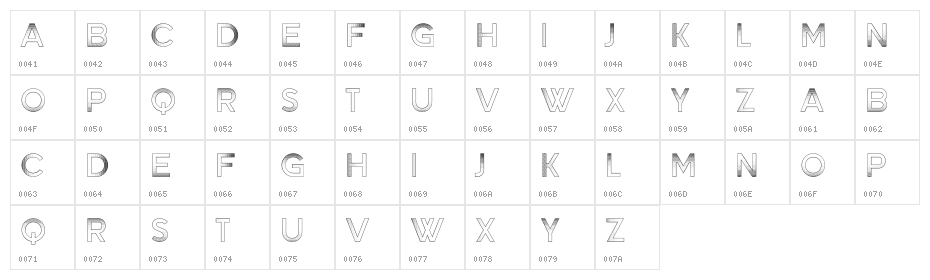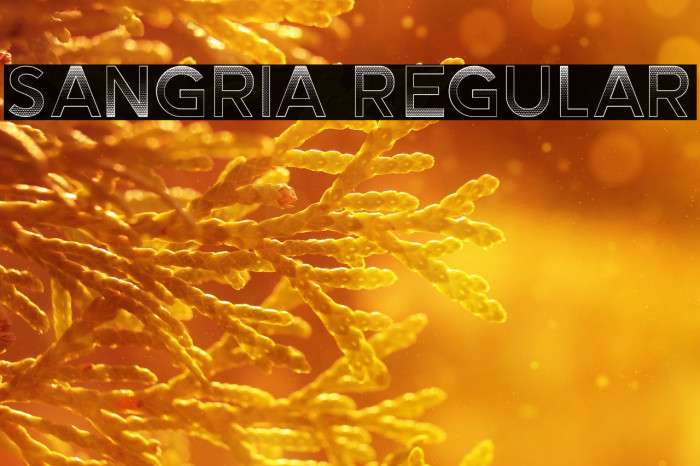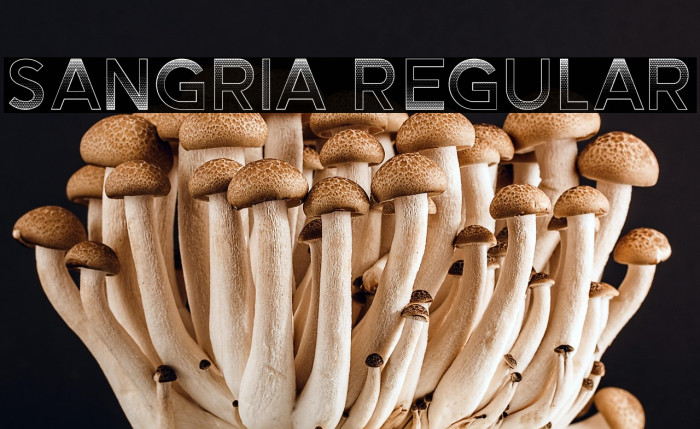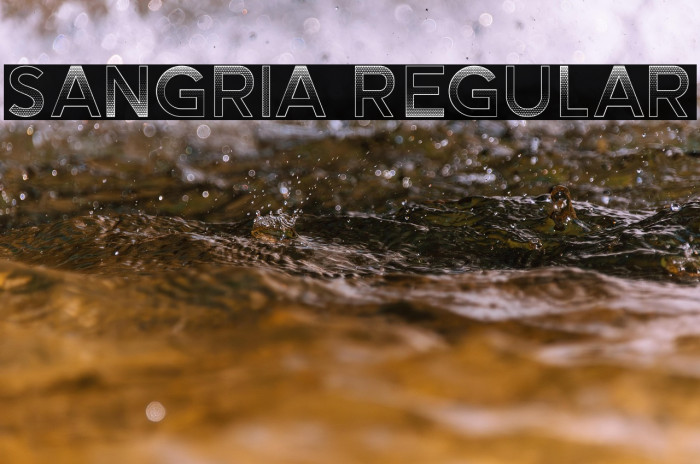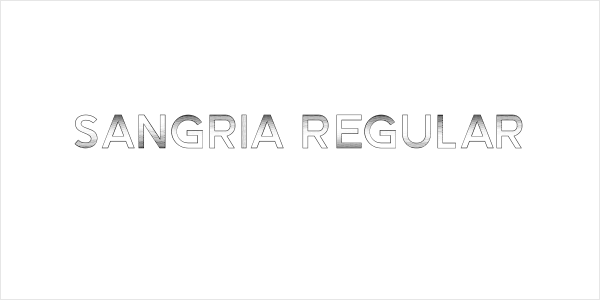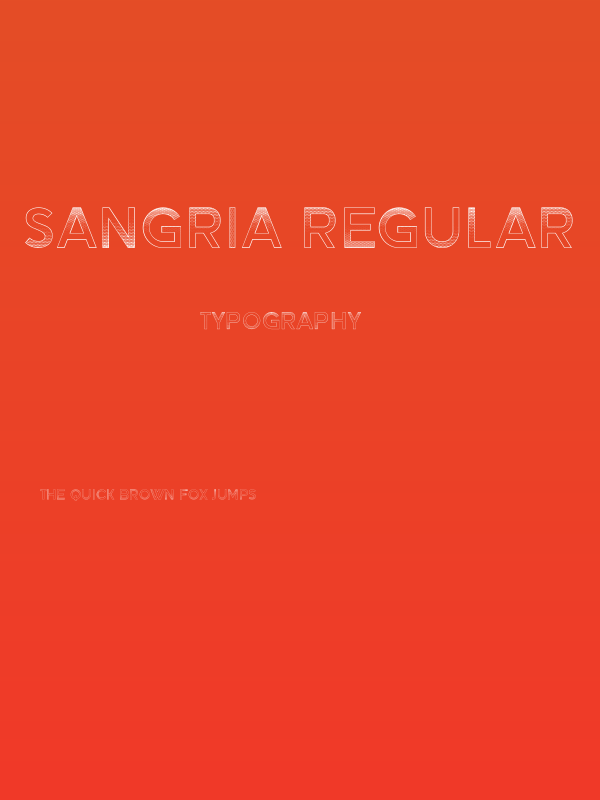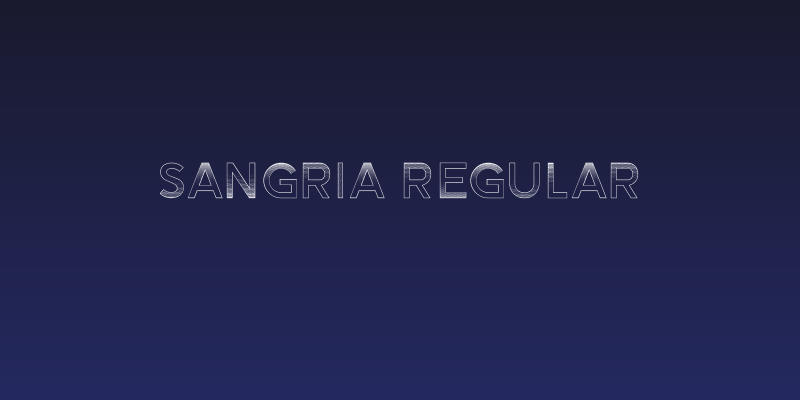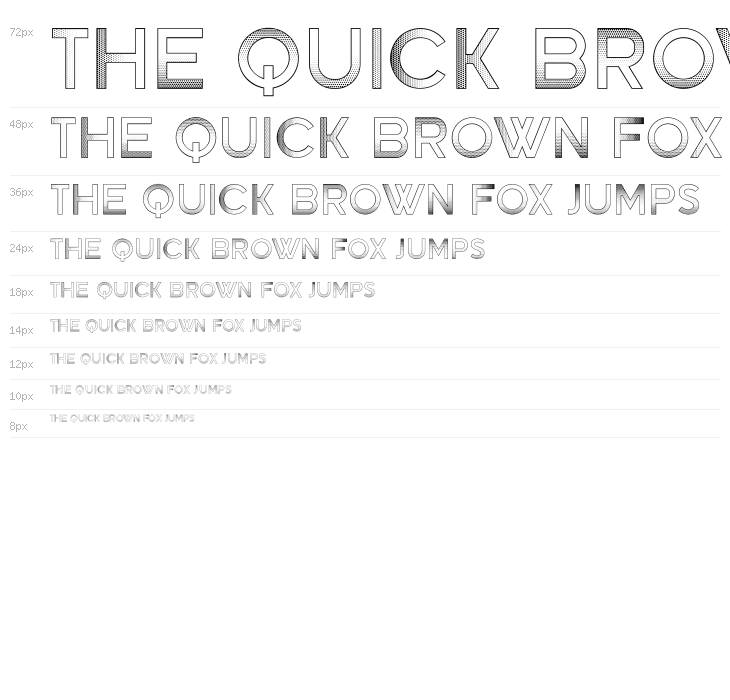
Sangria Regular Font
Sangria Regular Description
This font features a unique and modern design with a geometric structure. Each character is outlined with a bold, clean line, and the interior is filled with a dotted pattern that adds texture and depth. The uppercase letters are uniform in height, creating a cohesive and balanced appearance. The font's style is both contemporary and versatile, making it suitable for a variety of design applications. The dotted interior provides a distinctive look that sets it apart from traditional solid fonts, offering a fresh and innovative approach to typography.
Proposed ProjectsIdeal for branding, posters, and modern digital designs where a unique and stylish font is desired.